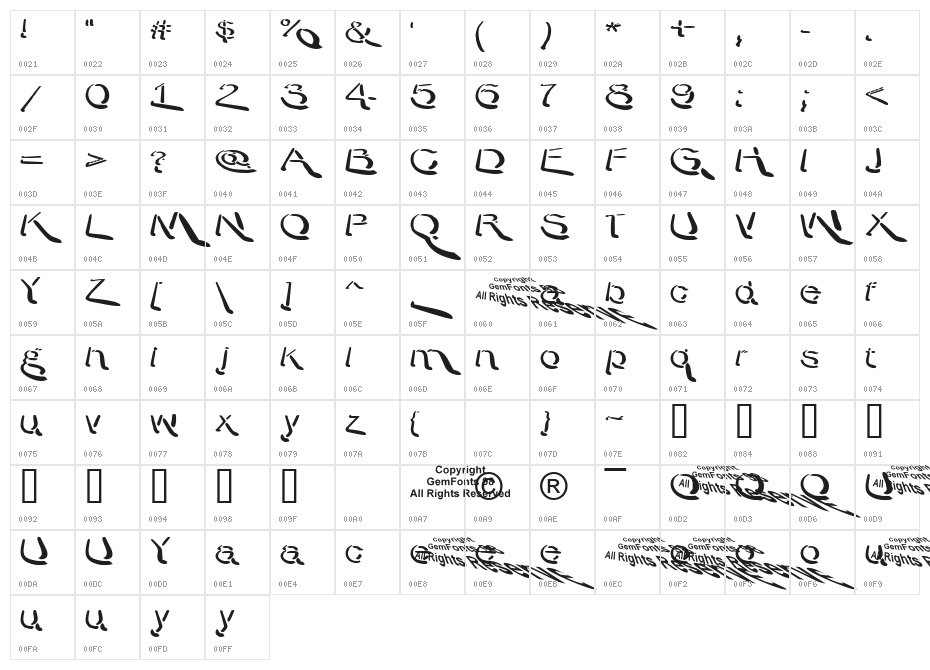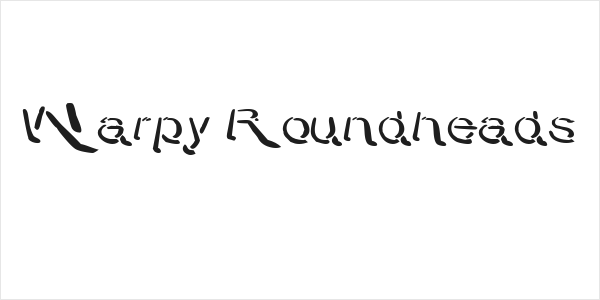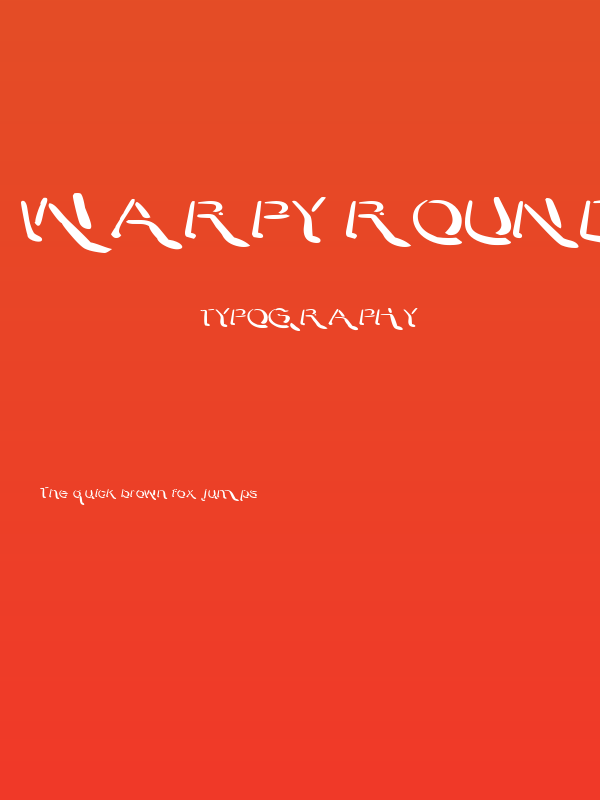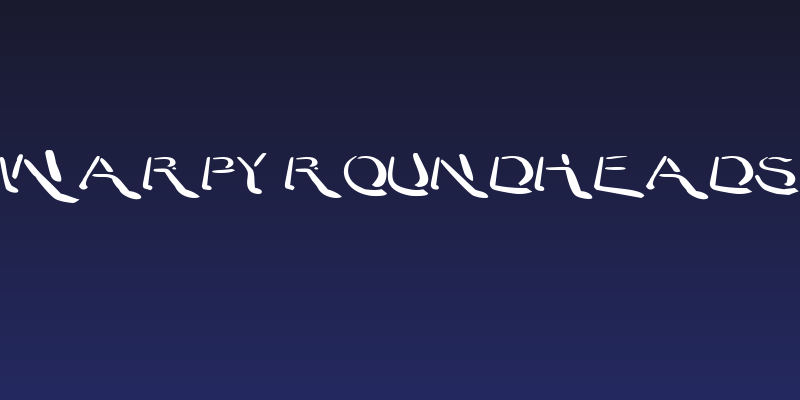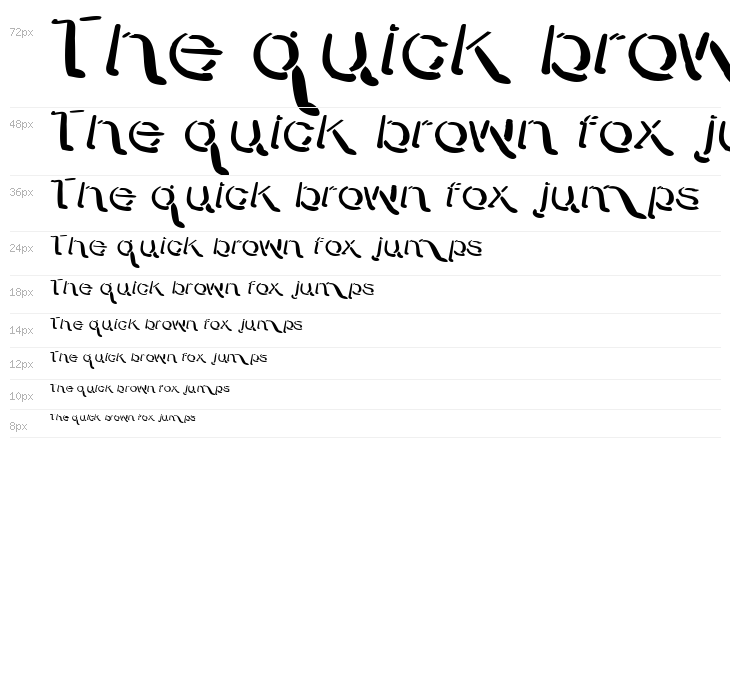
Warpy Roundheads Font
Warpy Roundheads Description
This font features a unique, warped design with rounded edges, giving it a playful and artistic appearance. The characters are slightly tilted, adding a dynamic and energetic feel. The strokes vary in thickness, creating a sense of movement and fluidity. The uppercase and lowercase letters maintain a consistent style, while the numbers and special characters complement the overall design. This font is visually striking and stands out due to its unconventional form, making it suitable for creative and bold applications.
Proposed ProjectsIdeal for artistic projects, posters, album covers, and branding that seeks a unique and eye-catching look.